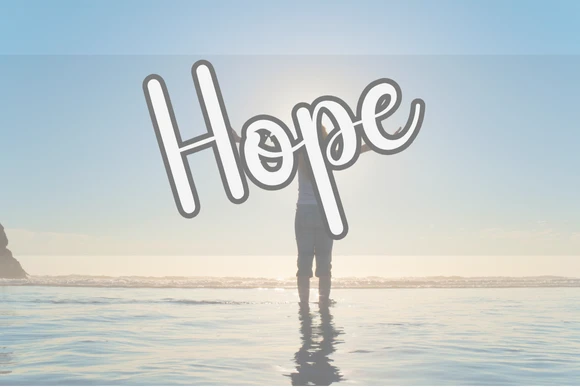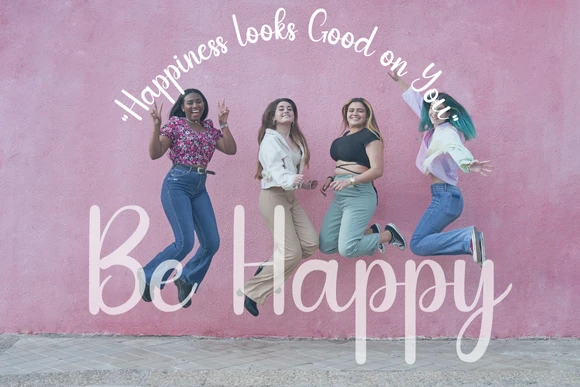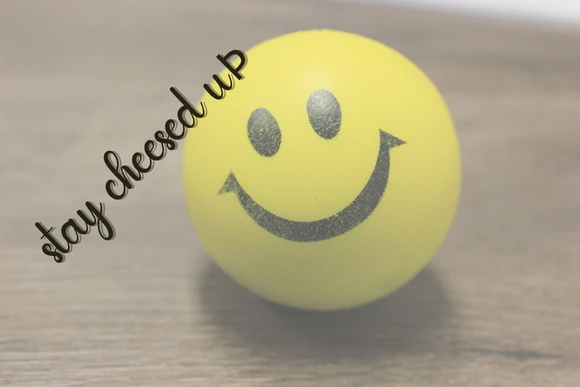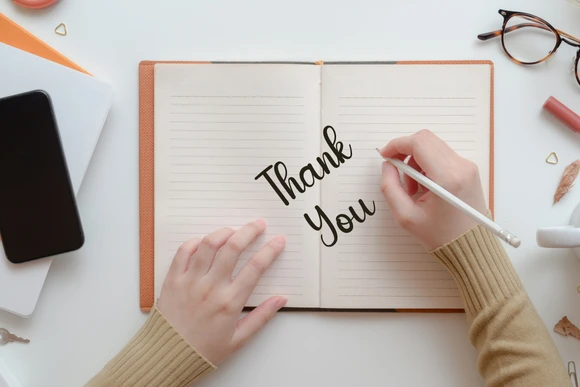
Share positivity and elegance in your designs with Stay Blessed Fonts ā a graceful handwritten script inspired by uplifting messages and modern calligraphy. Its flowing strokes and soft curves give your text a heartfelt, approachable feel thatās perfect for inspirational content, faith-based designs, special events and lifestyle brands.
Use Stay Blessed Fonts for greeting cards, wedding invitations, baby shower stationery, inspirational quotes, social media graphics, product packaging, blogs, planners and logos. Its clean, easy-to-read style makes it ideal for both print and digital projects.